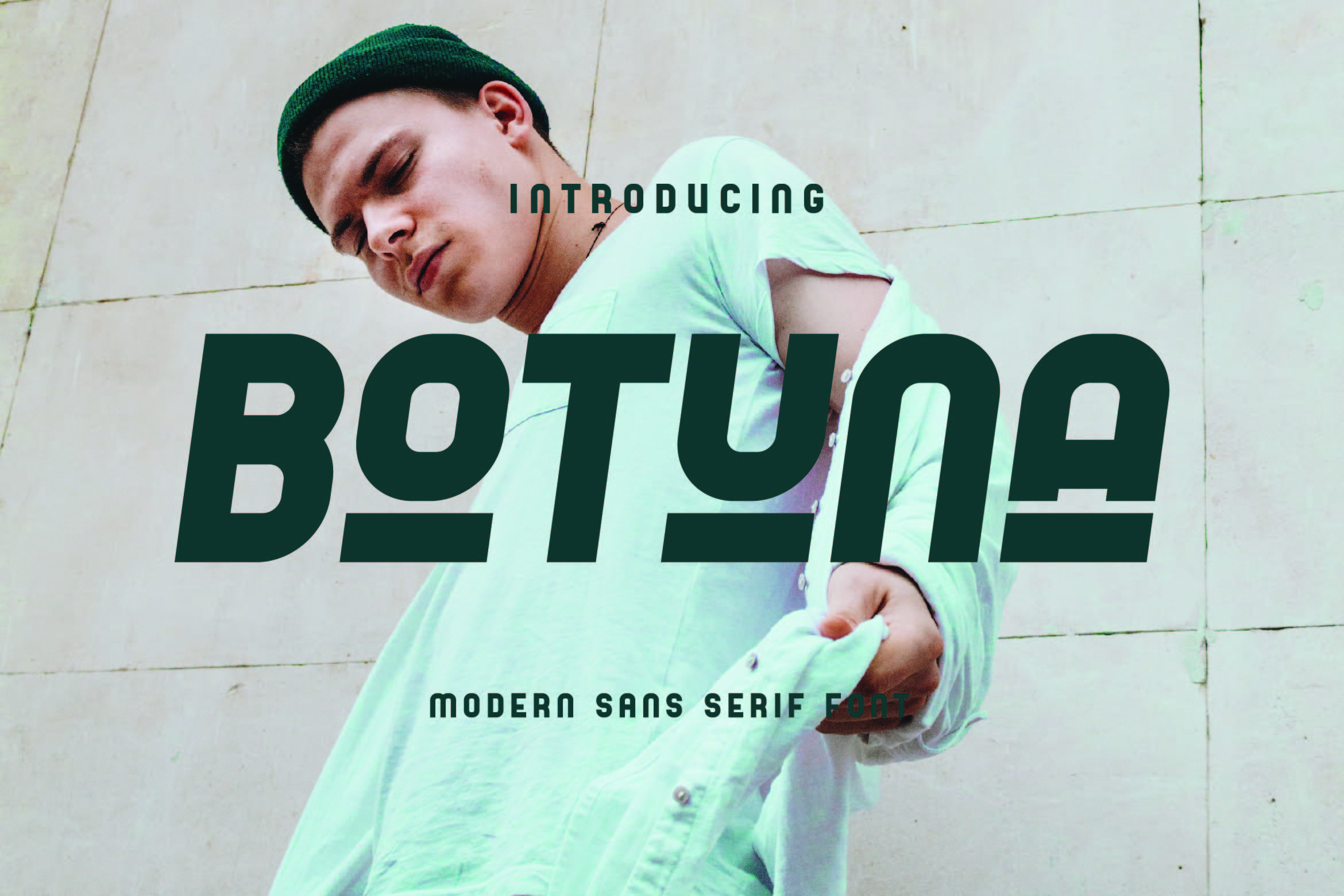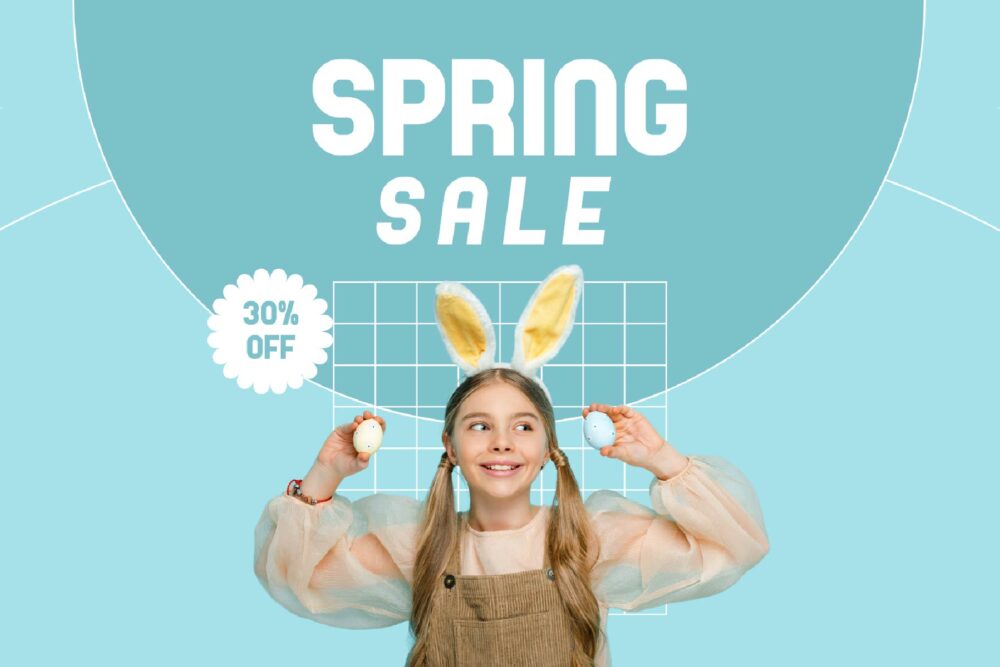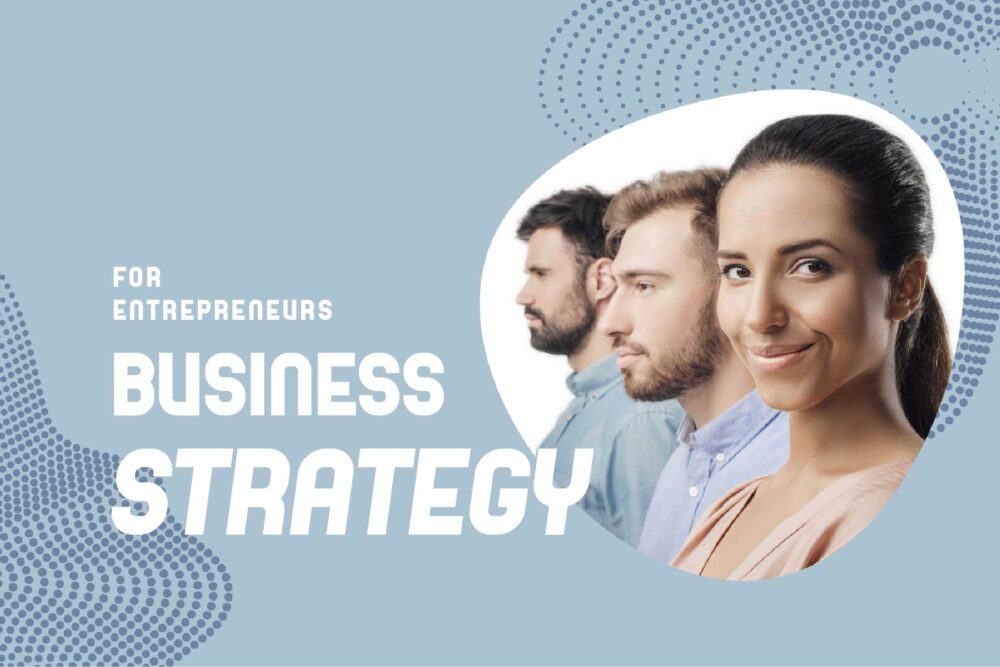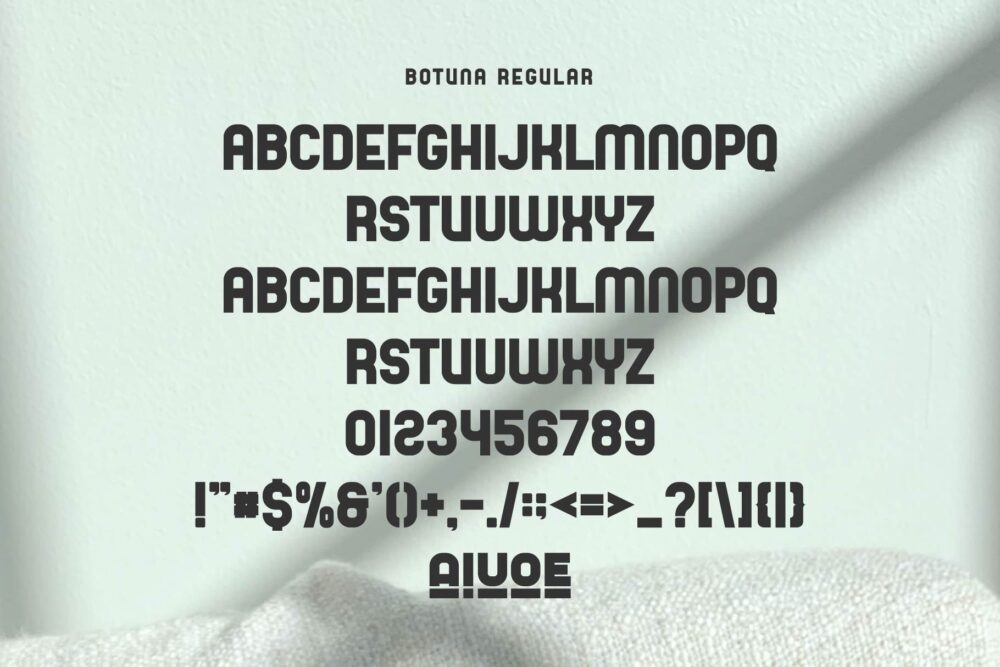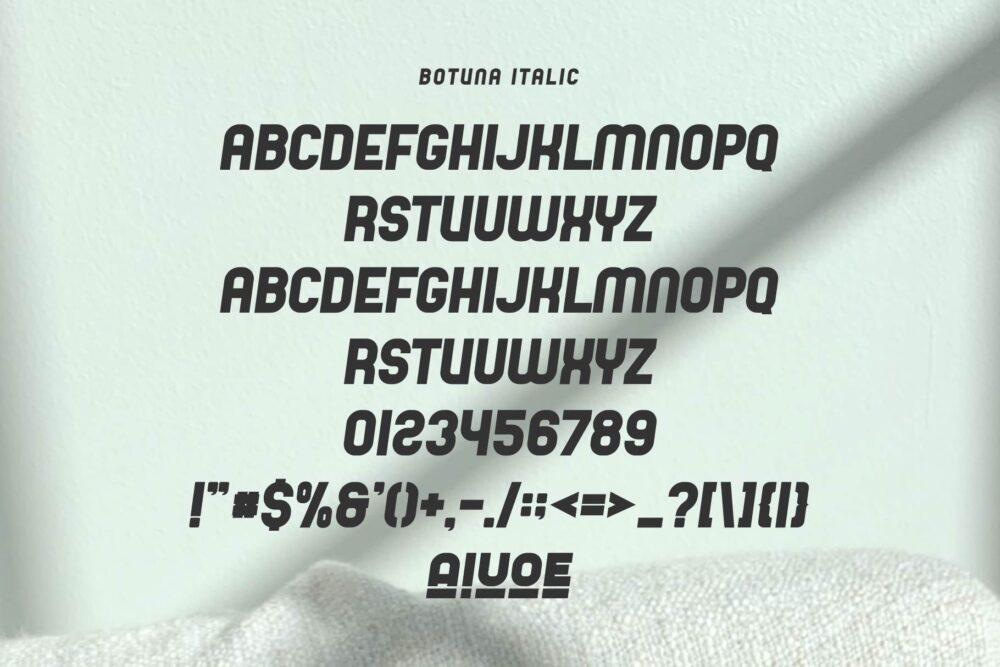
Botuna
Botuna Italic
Botuna Sans Font Typeface inspired by the famous minimalist logo perfect for the purposes of designing templates, brochures, videos, advertising branding, logos, invitation, layout design, elegant crafting, beauty design and other.
Botuna – Modern Sans Serif Font